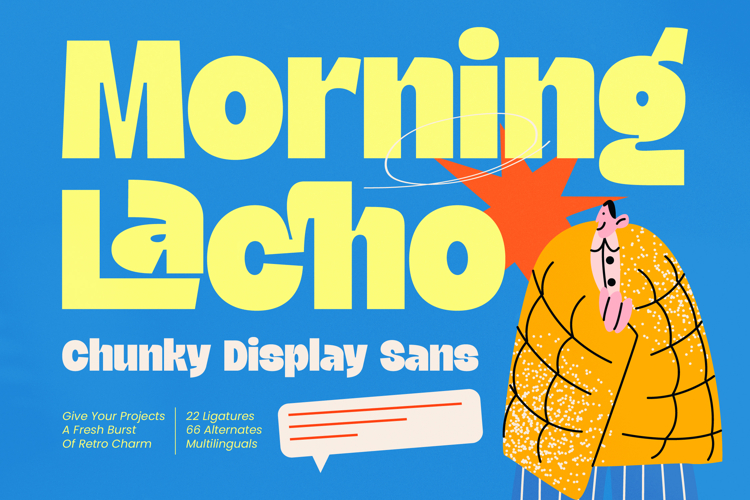
Morning Lacho - Chunky Display Sans
Command attention instantly with a typeface designed for maximum visual impact. Morning Lacho - Chunky Display Sans is a high-energy powerhouse that blends retro charm with a modern aesthetic. Its thick, heavy strokes and bold proportions are specifically crafted for headers that need to pop, making it a definitive choice for any designer looking to inject a fresh burst of personality into their work.
Unlock a world of creative possibilities with a robust set of professional typographic features. Morning Lacho - Chunky Display Sans is packed with 22 ligatures and 66 alternates, allowing for bespoke letter combinations that ensure your design remains unique. This level of customizable detail transforms standard text into a dynamic graphic element, perfect for high-end creative projects that demand a hand-crafted feel without sacrificing professional polish.
Bridge cultural gaps and expand your brand's footprint with sophisticated ease. With its extensive multilingual support, Morning Lacho - Chunky Display Sans adapts seamlessly across global markets, making it incredibly versatile for international projects. This inclusive character set ensures that your marketing campaigns and global communications maintain a consistent, high-impact look across different languages, providing a unified brand voice in an increasingly connected world.